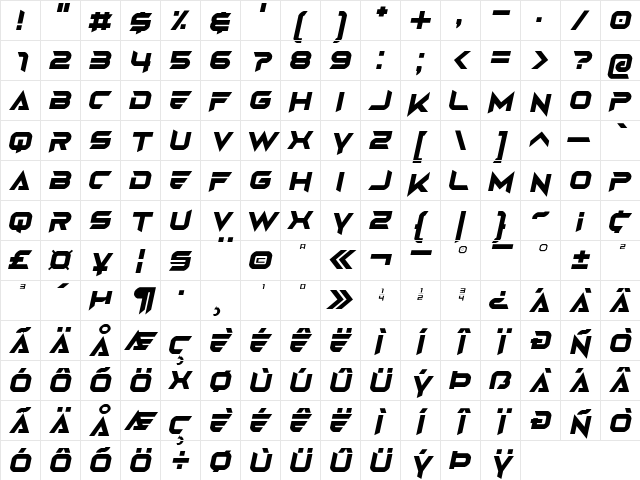
Angas Bold Italic Free Font
Angas Bold Italic
Design Context for Angas
Angas is a composed and adaptable typeface that performs quietly and consistently across a wide range of design contexts. The slanted form adds forward momentum and visual energy. Its bold stroke weight gives it real presence on the page.
Pro Tip: Use Angas for emphasis, pull quotes, and subheadings where its slanted energy can add rhythm to the layout.